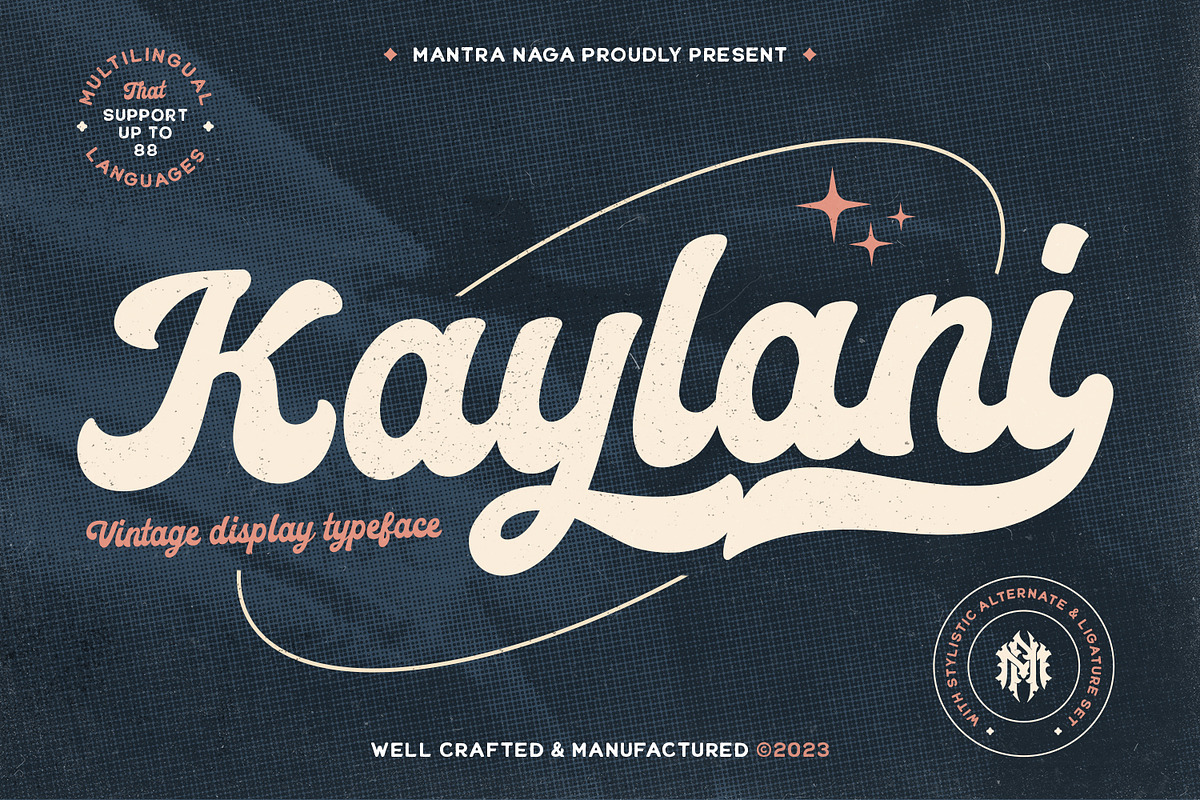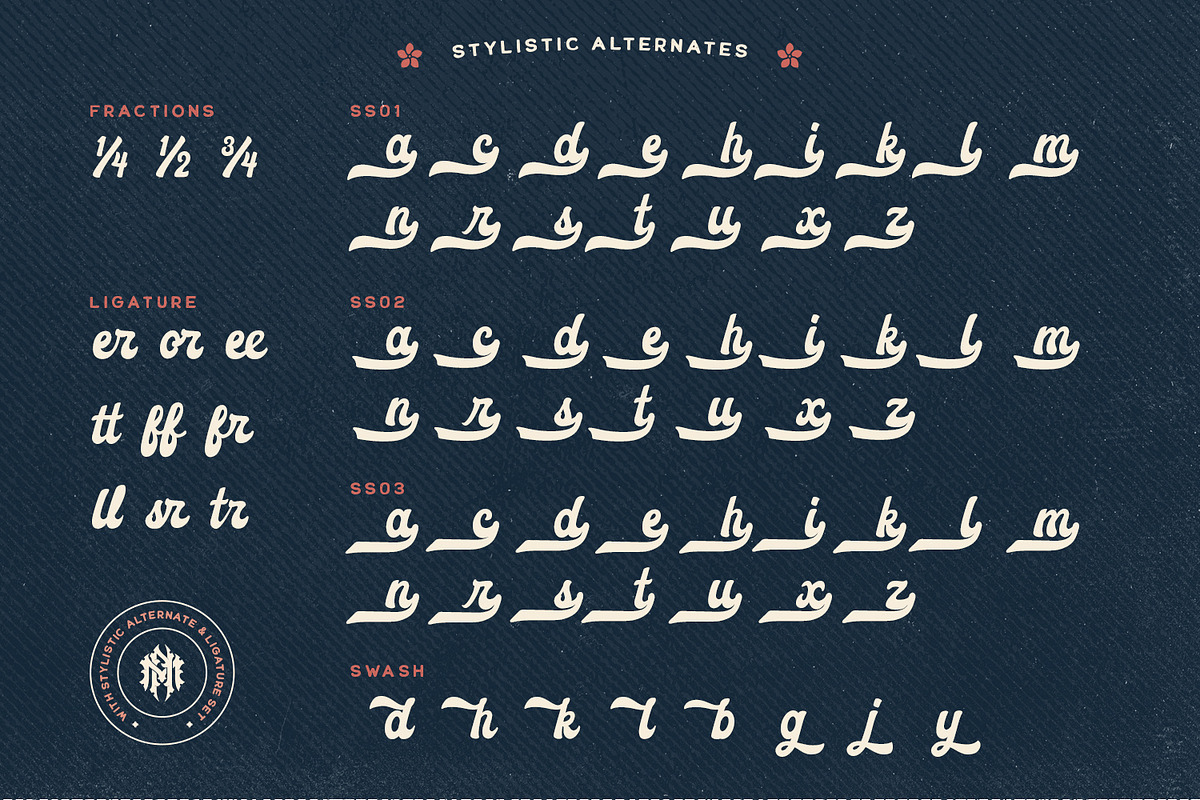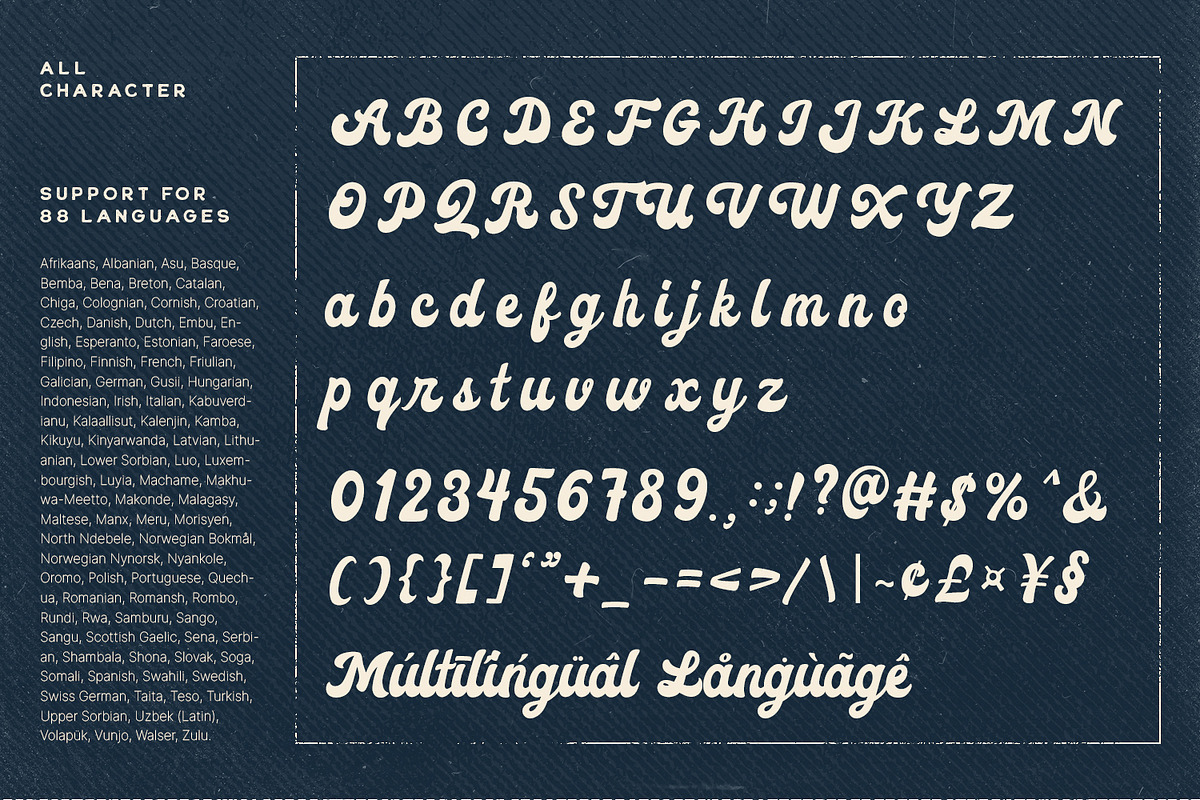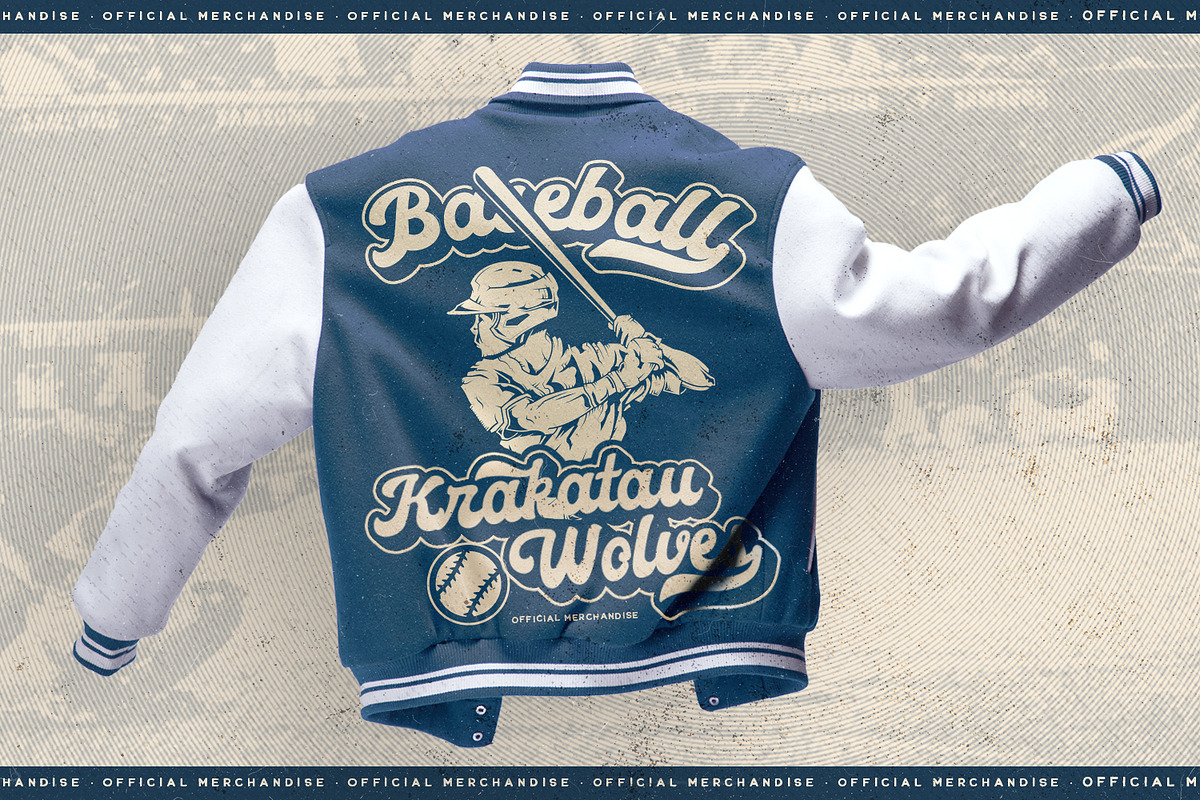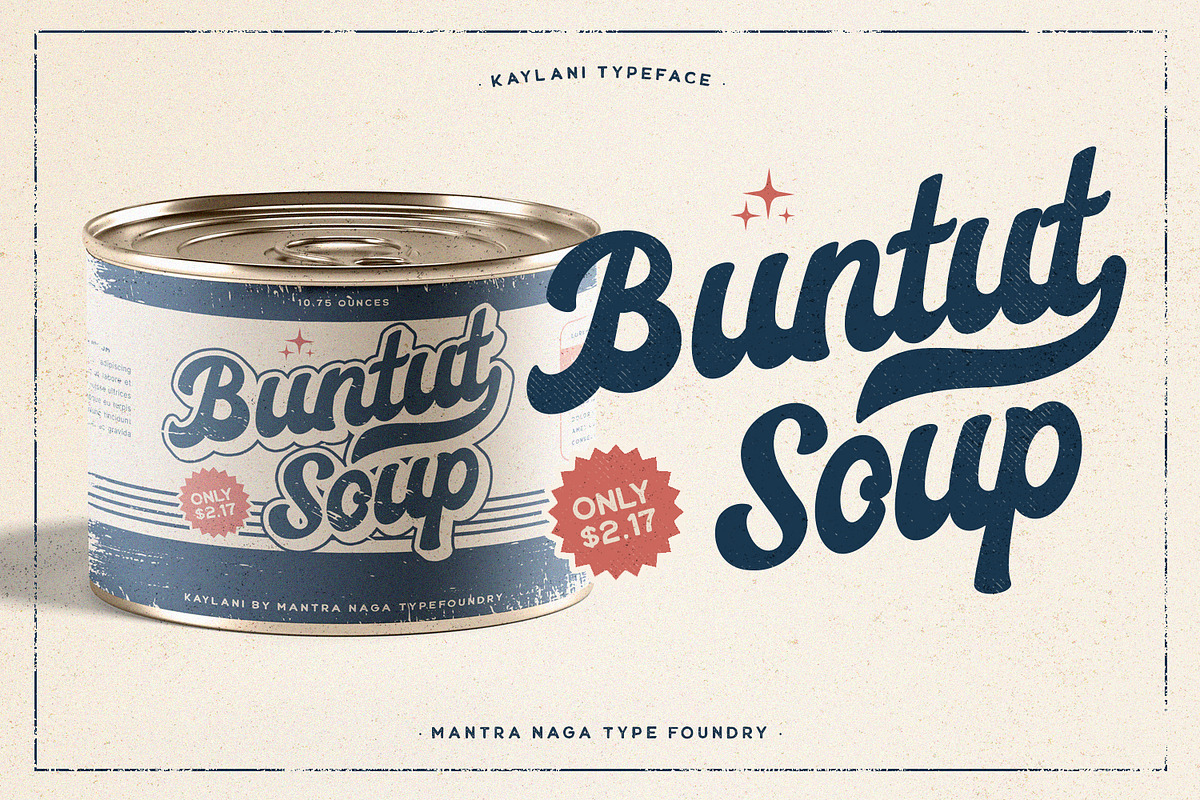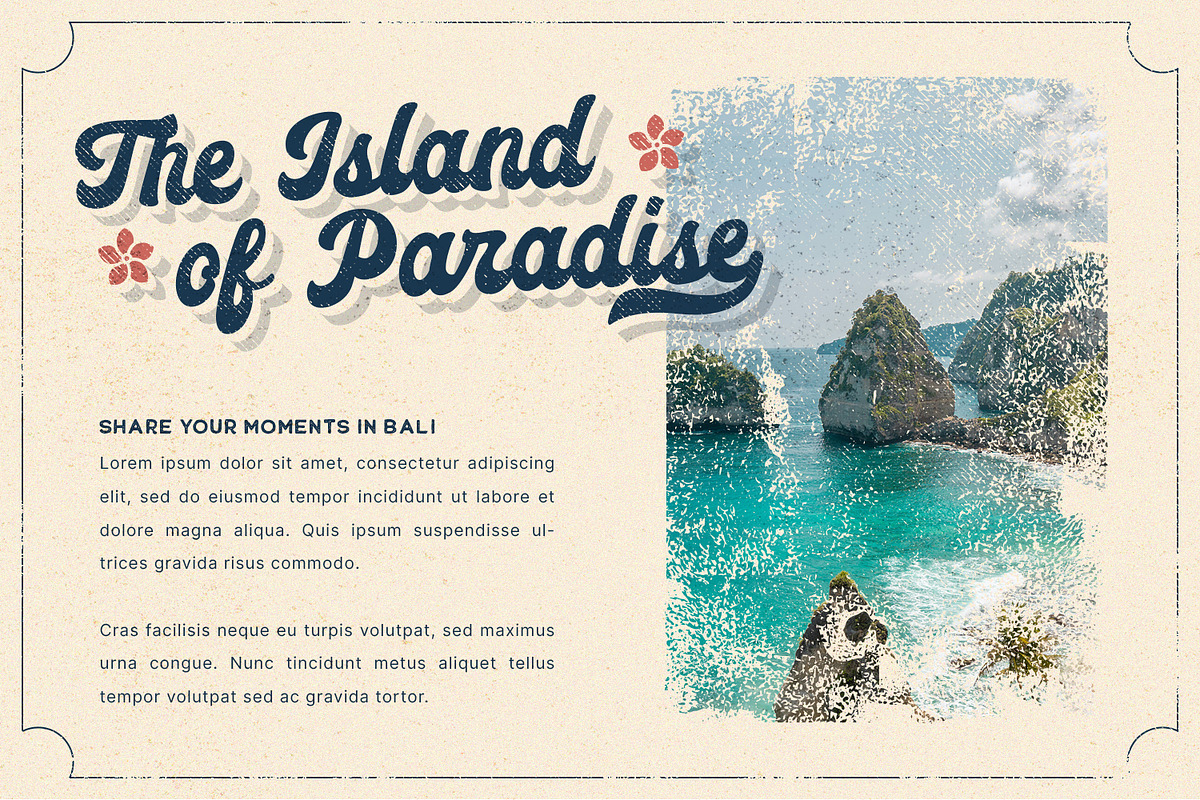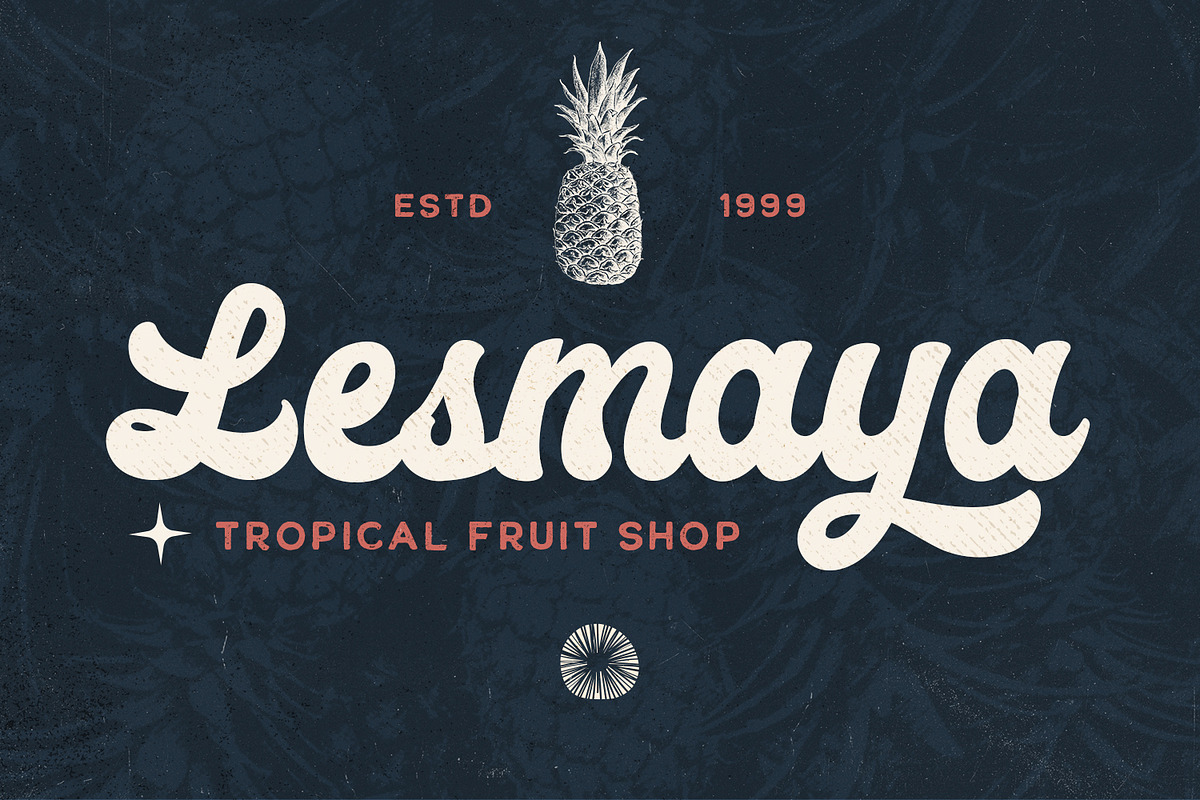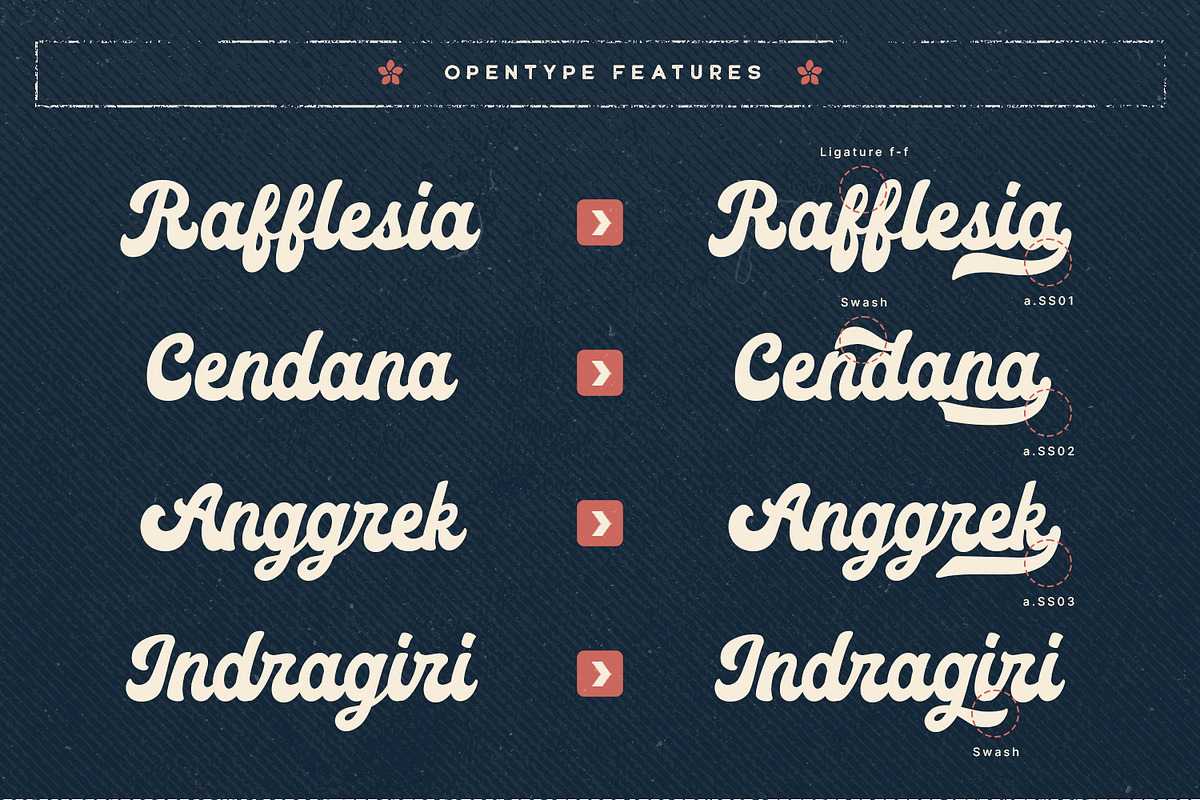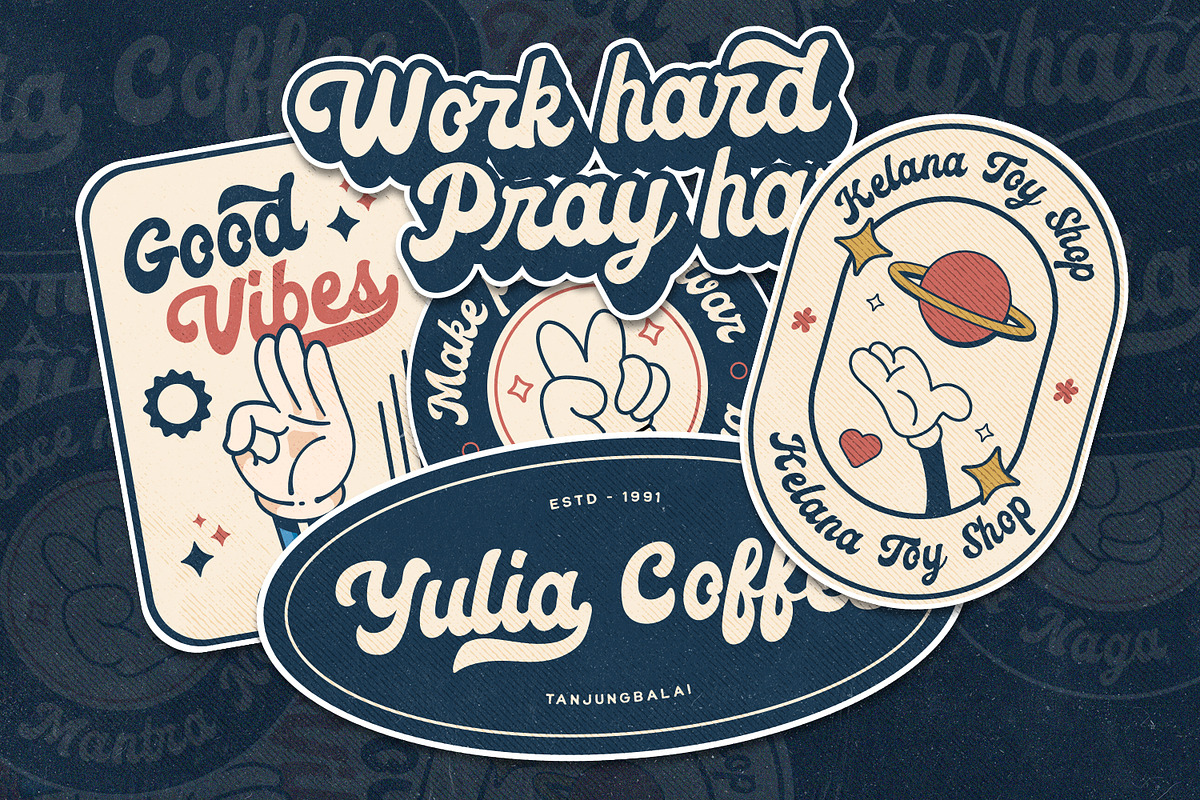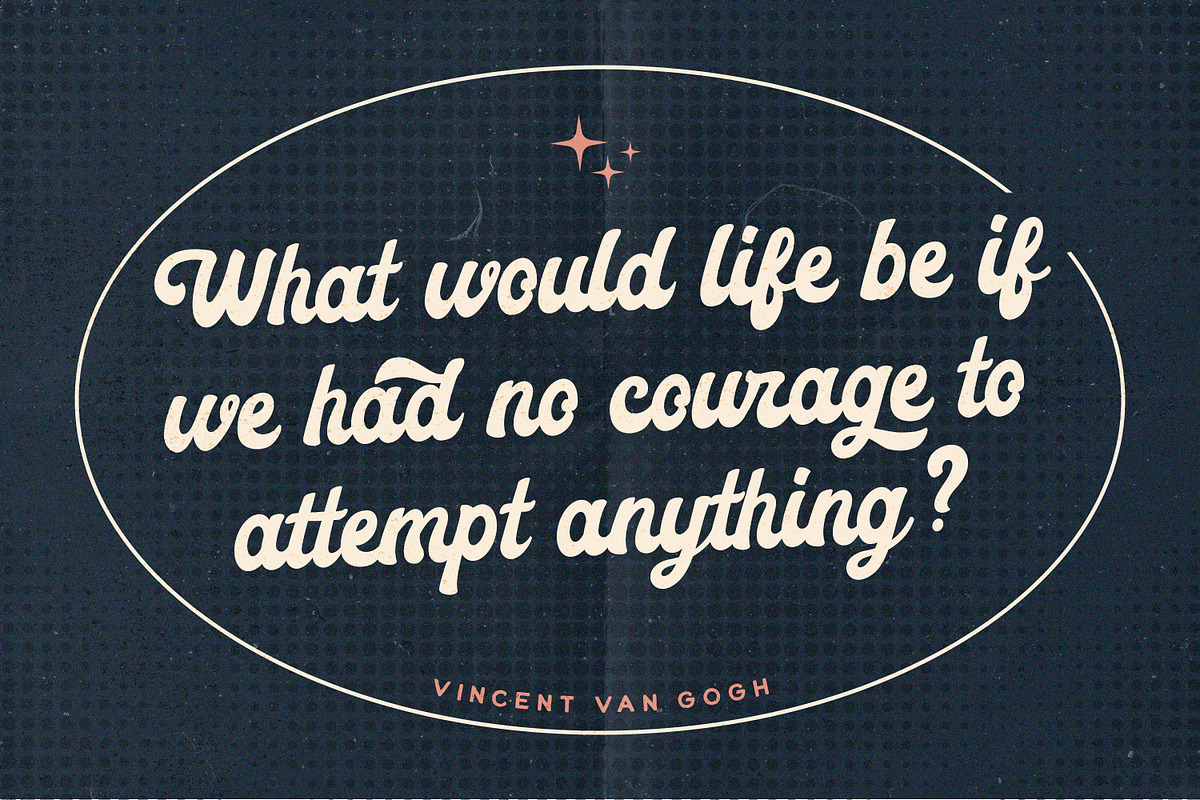
Kaylani - Vintage Script Display
Introducing Kaylani – a Vintage Script Display Typeface. This typeface has many alternatives with swashes that can make your lettering/logotype more attractive.
This font is suitable for logos and various other formal forms, such as invitations, labels, logos, magazines, books, greeting/wedding cards, packaging, fashion, makeup, stationery, novels, labels, or advertising. This font is PUA encoded, which means you can access all of the glyphs and swashes with ease!
Feature:
- multilingual support
- ligature
- alternative
- swashes